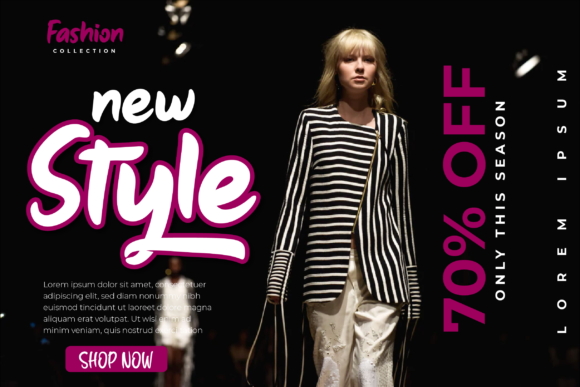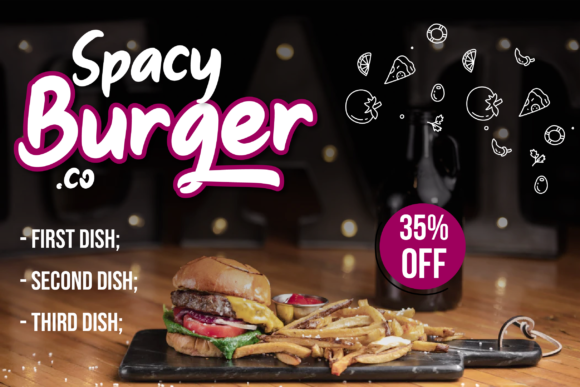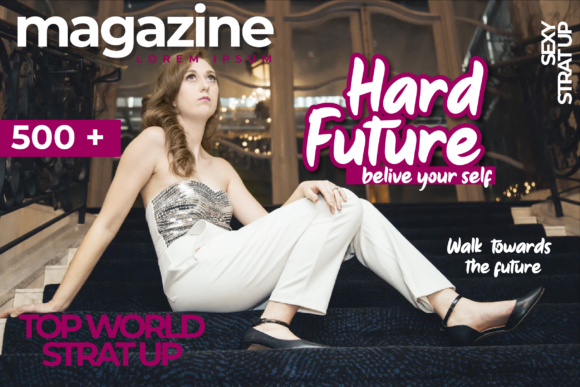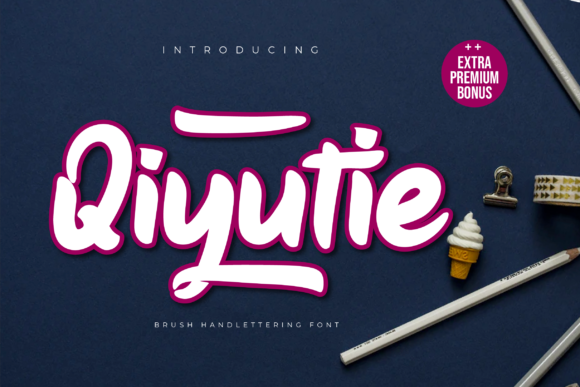
Introduction to Qiyutie Font
Qiyutie is a hand-drawn font with a natural handwriting feel.
It features an elegant feel and it is perfect for quotes, social media posts, advertisements, banners, posters, and much more .
Key Features of Qiyutie Font
Why Choose Qiyutie Font?
Qiyutie Font offers exceptional quality and versatility, making it a valuable addition to your design toolkit. Whether you’re creating for personal projects or commercial use, Qiyutie Font delivers professional results.